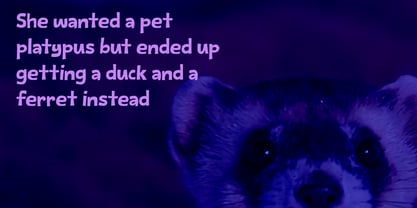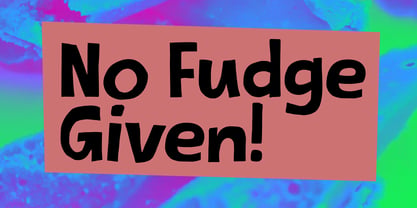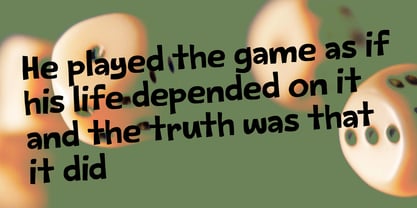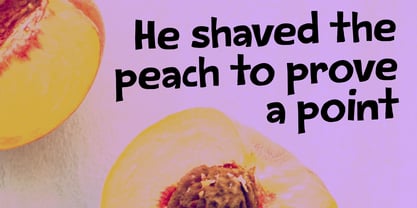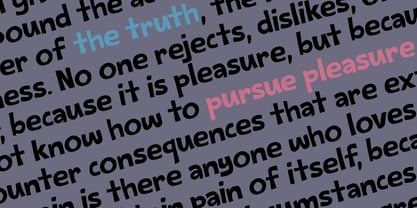
No Fudge Given Pro
von Hanoded
Die Schriftfamilie No Fudge Given Pro wurde von David Kerkhoff entworfen und von Hanoded veröffentlicht. No Fudge Given Pro enthält 1 Stile und Familienpaketoptionen. Mehr über diese Familie
No Fudge Given was created after eating some lovely fudge, which I picked up after my hiking trip in the UK, AND after finding out that people don’t seem to give one these days. The other day I picked up my youngest kid from school and I noticed a lady, sitting in her car with the engine running, eating a whole bag of crisps while playing with her mobile phone. When I asked her why she had the engine running, she looked at me like I spoke Chinese. I said: “it’s not helping the environment, you know”. She then told me that she didn’t give a fudge and fished out the last crips crumbs from the bag.
Designer: David Kerkhoff
Foundry: Hanoded
Hanoded is run by Dutchman David Kerkhoff. His fonts are a mishmash of styles, as he just creates whatever pops into his head. You will find a lot of brush fonts in his collection, as his favourite tools are brushes and Chinese ink, with cartoon style fonts and script fonts complementing his repertoire. Aside from making fonts, David occasionally guides tours in far-flung places, renovates his '30's house and tries reasoning with his wife and (teenage) kids. Not an easy task!